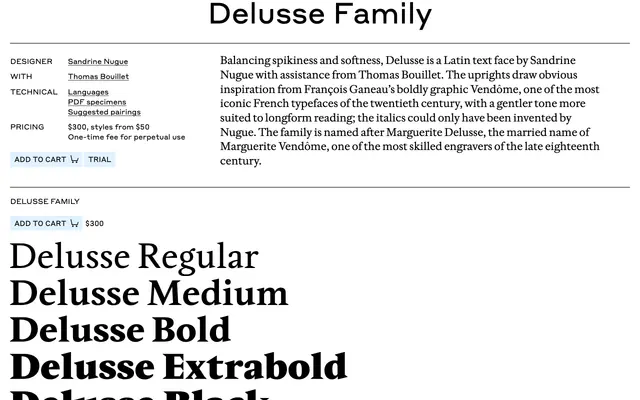
Delusse Family
Commercial Type · Sandrine Nugue
A French text serif by Sandrine Nugue with the spikiness of Vendome softened for longform reading, named after the 18th-century engraver Marguerite Delusse.
A text serif by Sandrine Nugue with Thomas Bouillet, balancing spikiness and softness. The uprights draw obvious inspiration from Francois Ganeau's boldly graphic Vendome, one of the most iconic French typefaces of the 20th century, but pull the tone back for longform reading. The italics are Nugue's own invention. The family is named after Marguerite Delusse, married name of Marguerite Vendome, one of the most skilled engravers of the late 18th century. Suits literary editorial, fashion and any setting that wants a French serif voice without Vendome's full theatrical contrast.
Commercial Type describe Delusse as a Latin text face balancing spikiness and softness, drawing obvious inspiration from Francois Ganeau's Vendome with a gentler tone for longform reading, paired with italics invented by Sandrine Nugue. Named after Marguerite Delusse, an 18th-century French engraver.